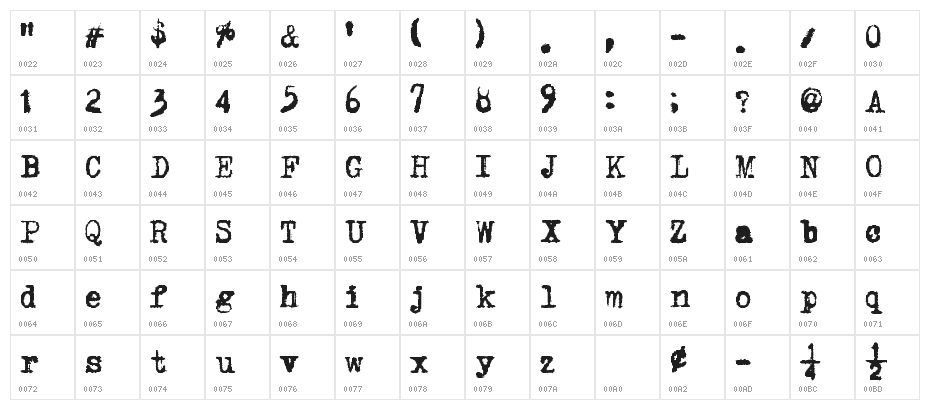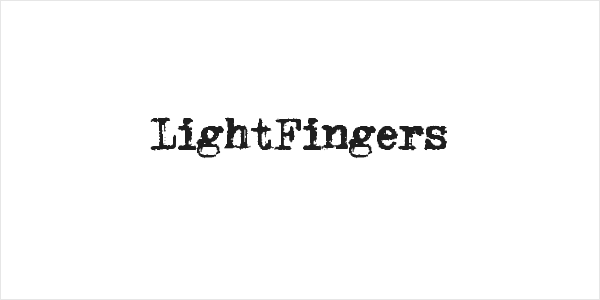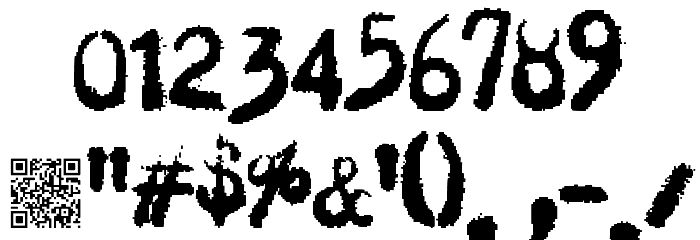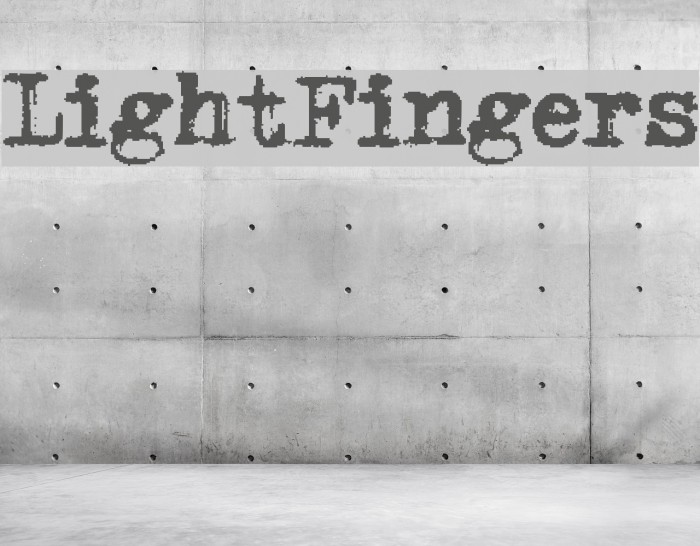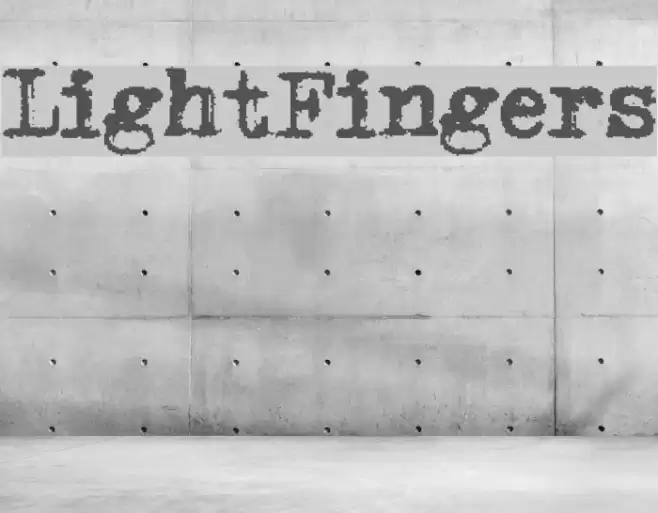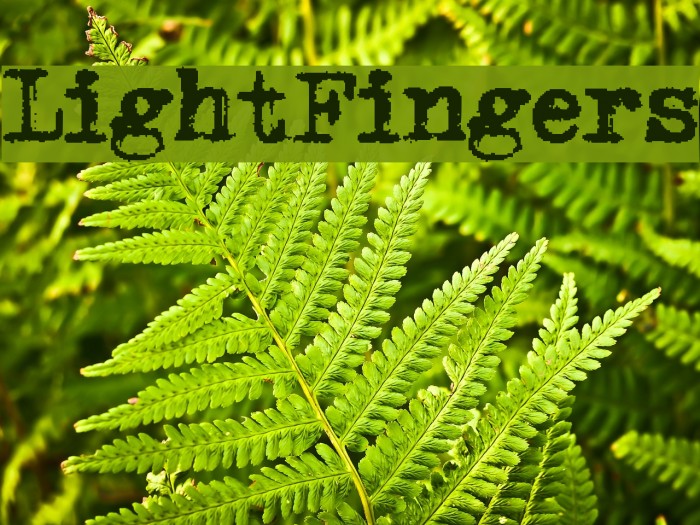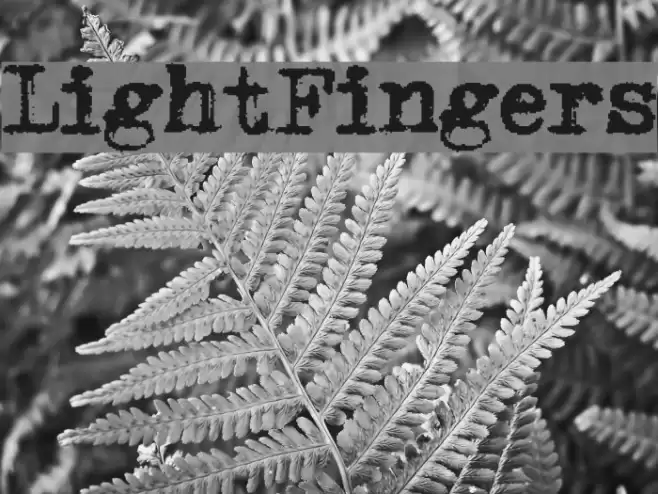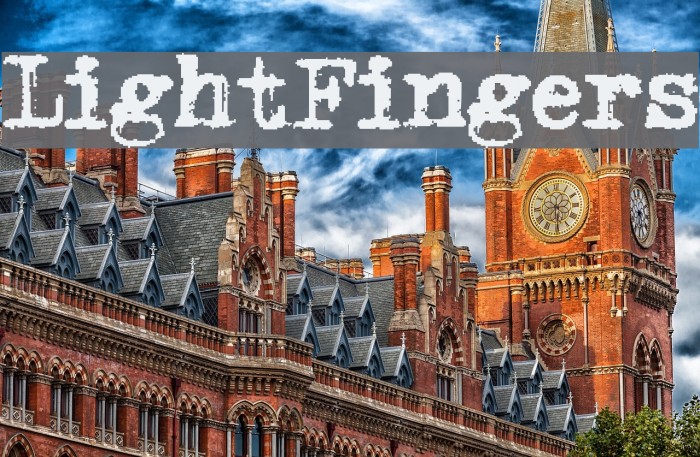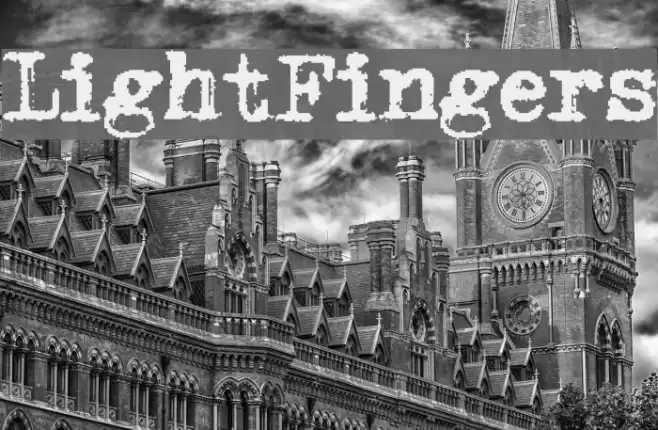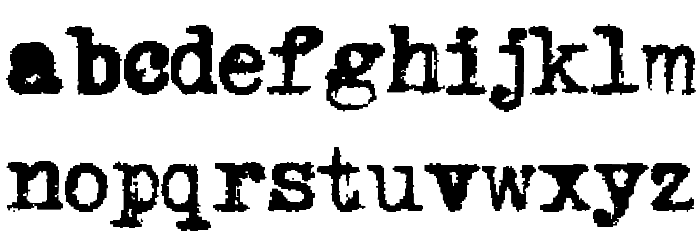
LightFingers Font
LightFingers Description
This font features a distressed, grunge style with a textured appearance that gives it a worn, vintage feel. The characters are bold and have irregular edges, creating a sense of movement and energy. The uppercase and lowercase letters maintain a consistent style, while the numbers and special characters complement the overall aesthetic. The font's unique, rough texture makes it stand out, adding a dynamic and edgy touch to any design.
| Overall Style | Vintage, Grunge |
| Proposed Projects | Ideal for posters, album covers, vintage-themed designs, and branding that requires a bold, edgy look. |